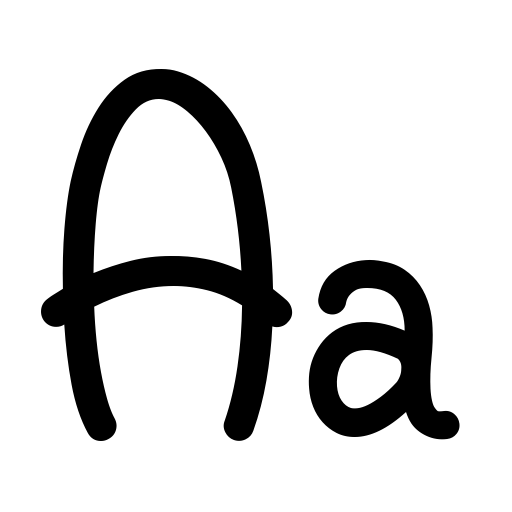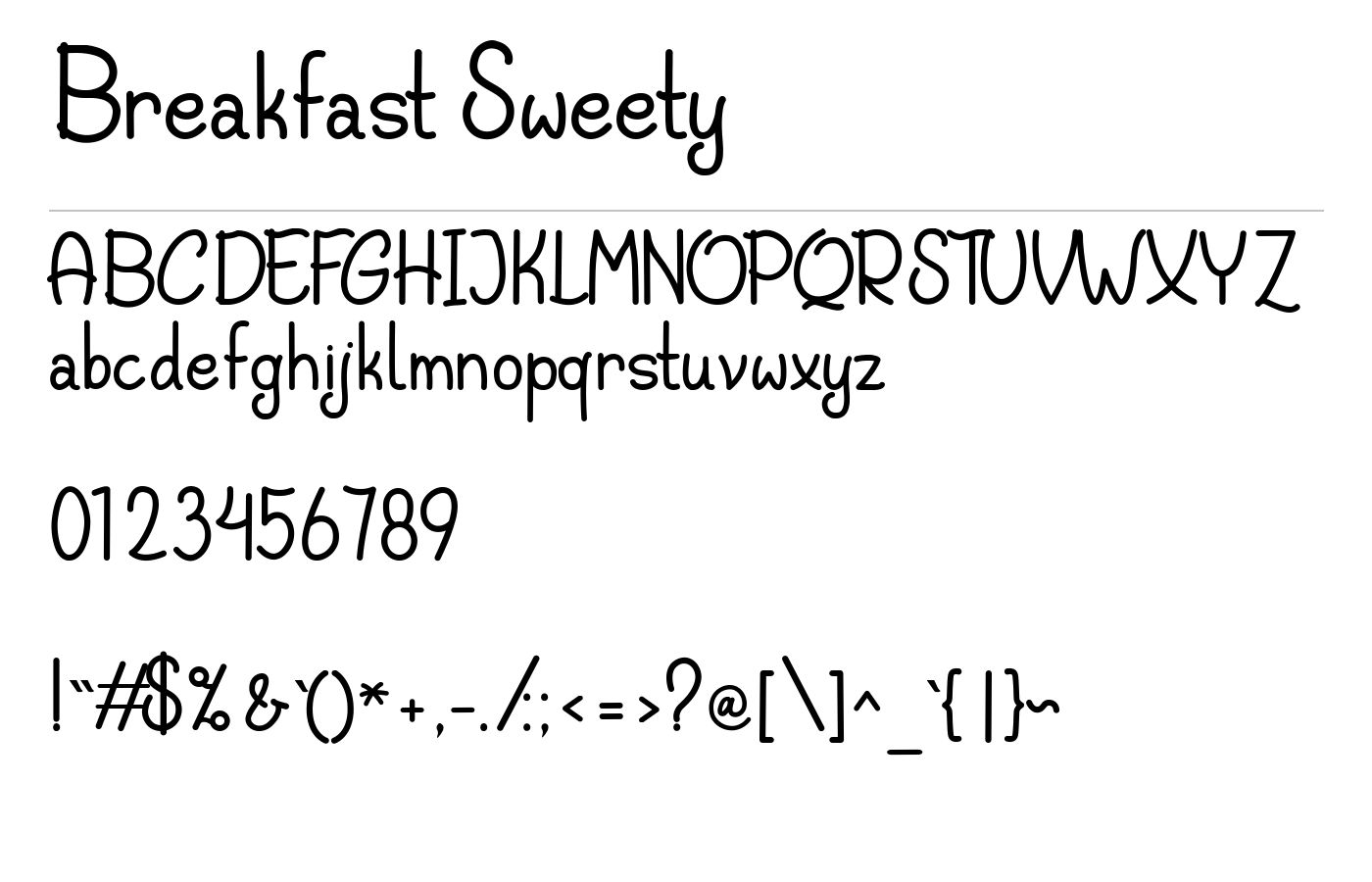
Breakfast Sweety is a playful, handwritten sans serif font that features tall, narrow letterforms with a casual, friendly feel. Its light weight and quirky, rounded strokes give it a warm and approachable personality, making it ideal for informal designs like children’s books, greeting cards, or fun branding projects. This font works well where a personal, whimsical touch is desired, especially in headlines and creative packaging.
Breakfast Sweety Font
About Breakfast Sweety Font
| Font family | Breakfast Sweety Font |
| Designer | Wahyudi Nur Prayitno |